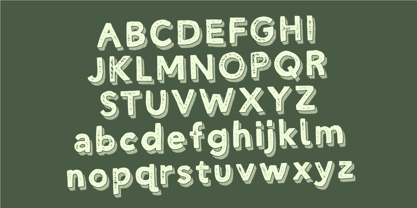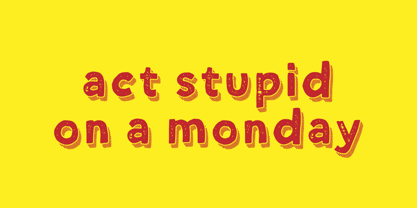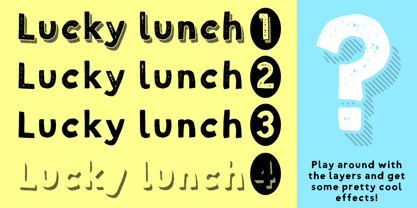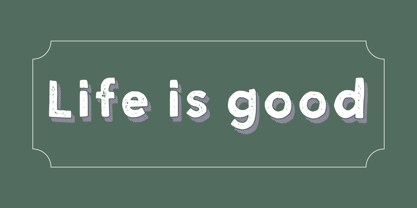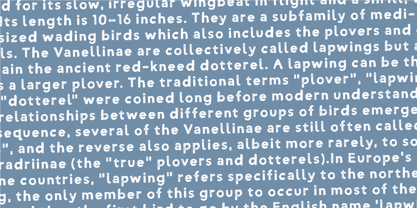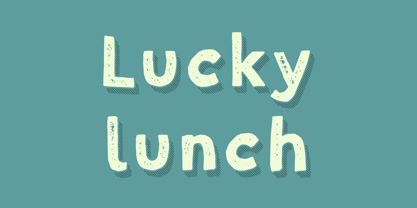
Lucky Lunch Font
A font to boost your creative work - handmade strokes and a scribbled 3d effect! Use the 4 different versions to create cool effects. With, or without shadow and with or without the worn effect!